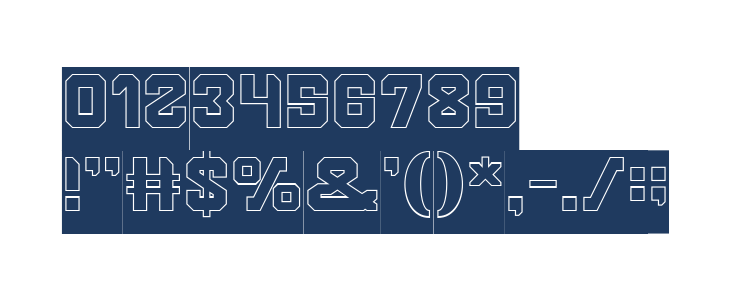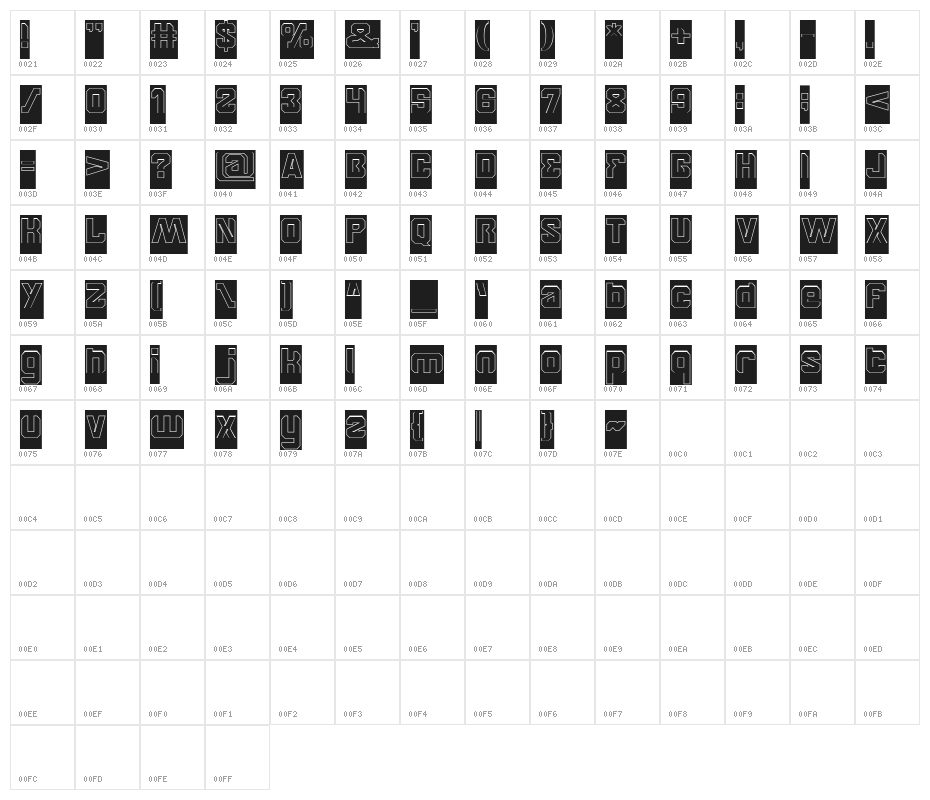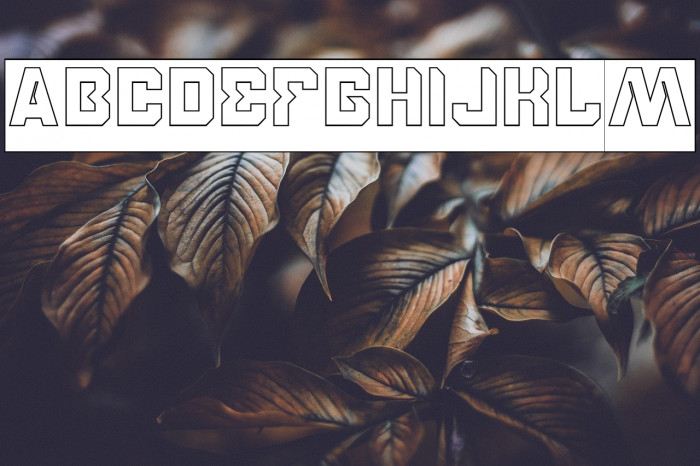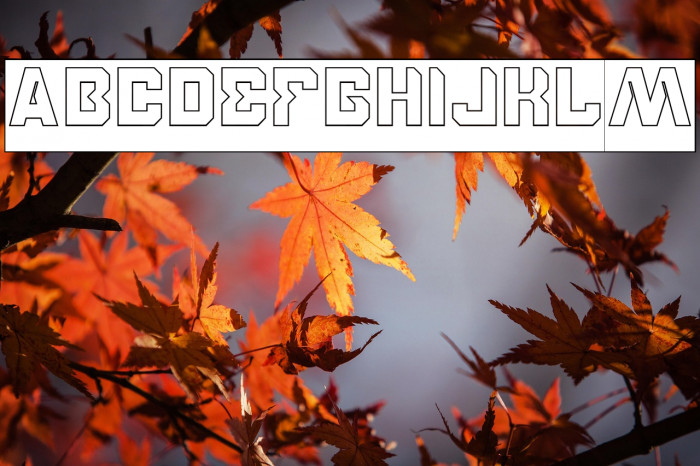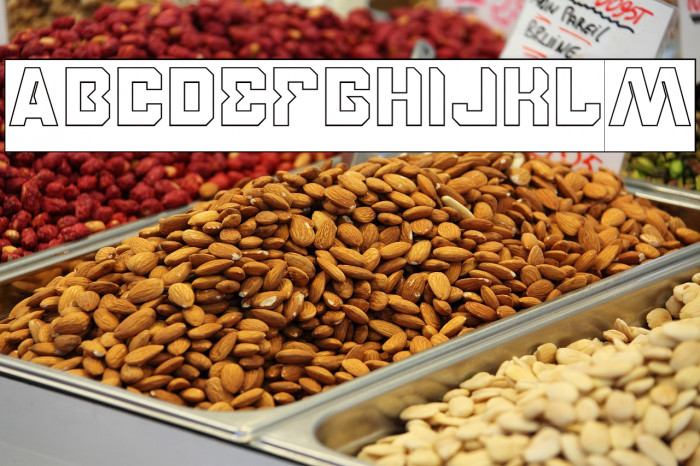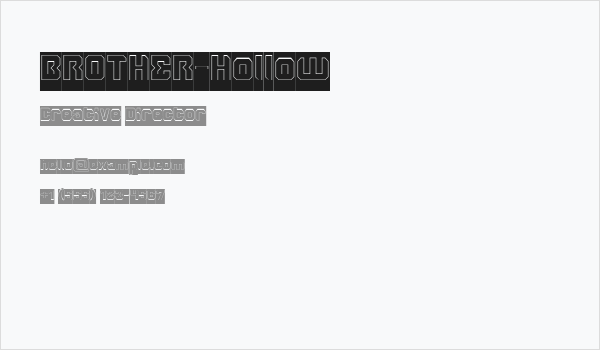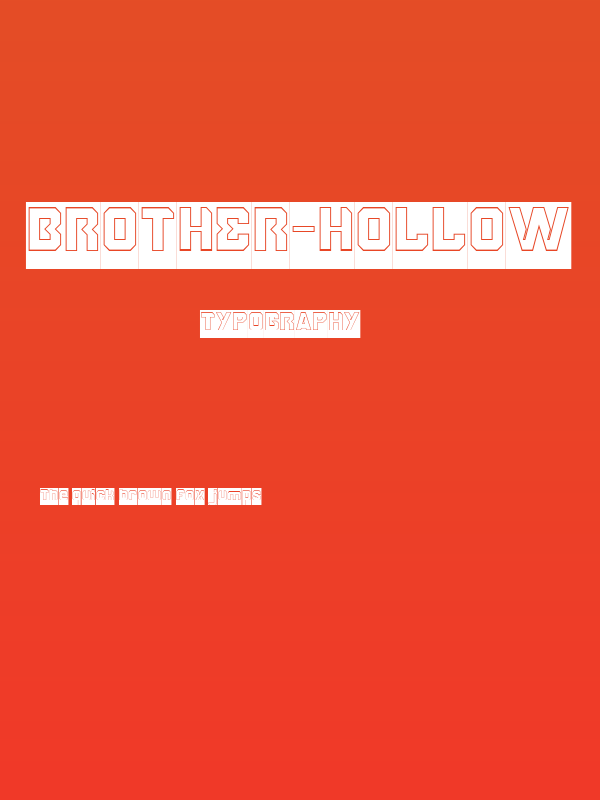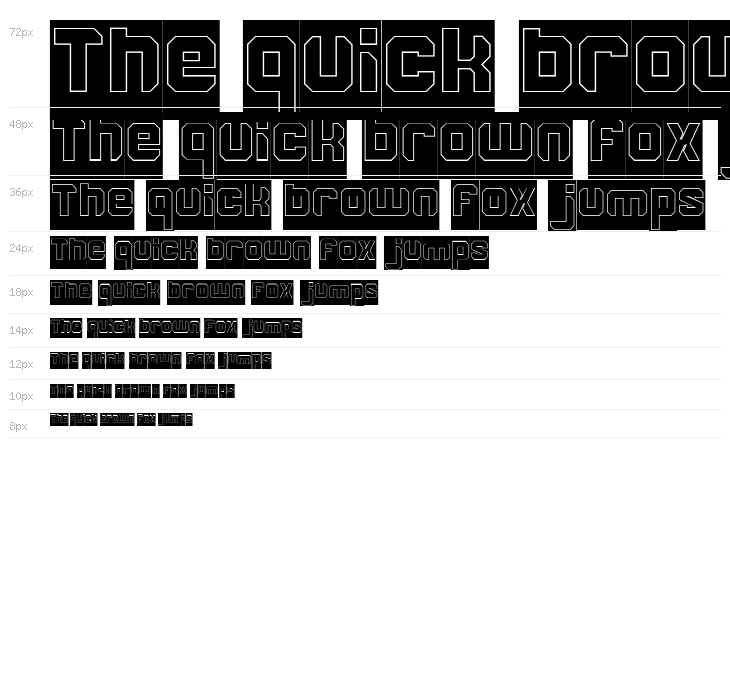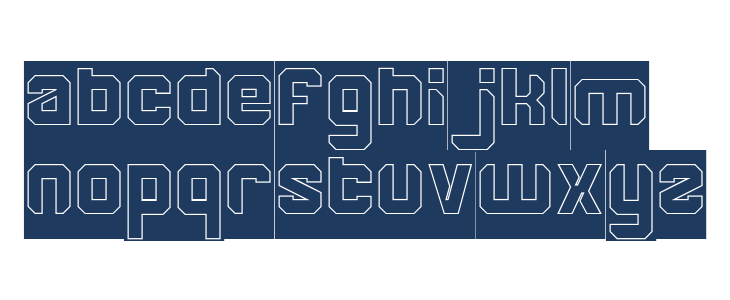
BROTHER-Hollow Font
BROTHER-Hollow Description
This font features a bold, hollow design with a geometric and futuristic aesthetic. The uppercase and lowercase letters are crafted with sharp angles and clean lines, creating a striking and modern appearance. The characters are outlined, giving them a hollow effect that adds depth and dimension. The numbers and special characters maintain the same stylistic approach, ensuring consistency across all elements. This font is ideal for projects that require a bold statement, such as posters, logos, and headlines. Its unique style makes it stand out, capturing attention with its distinctive look.